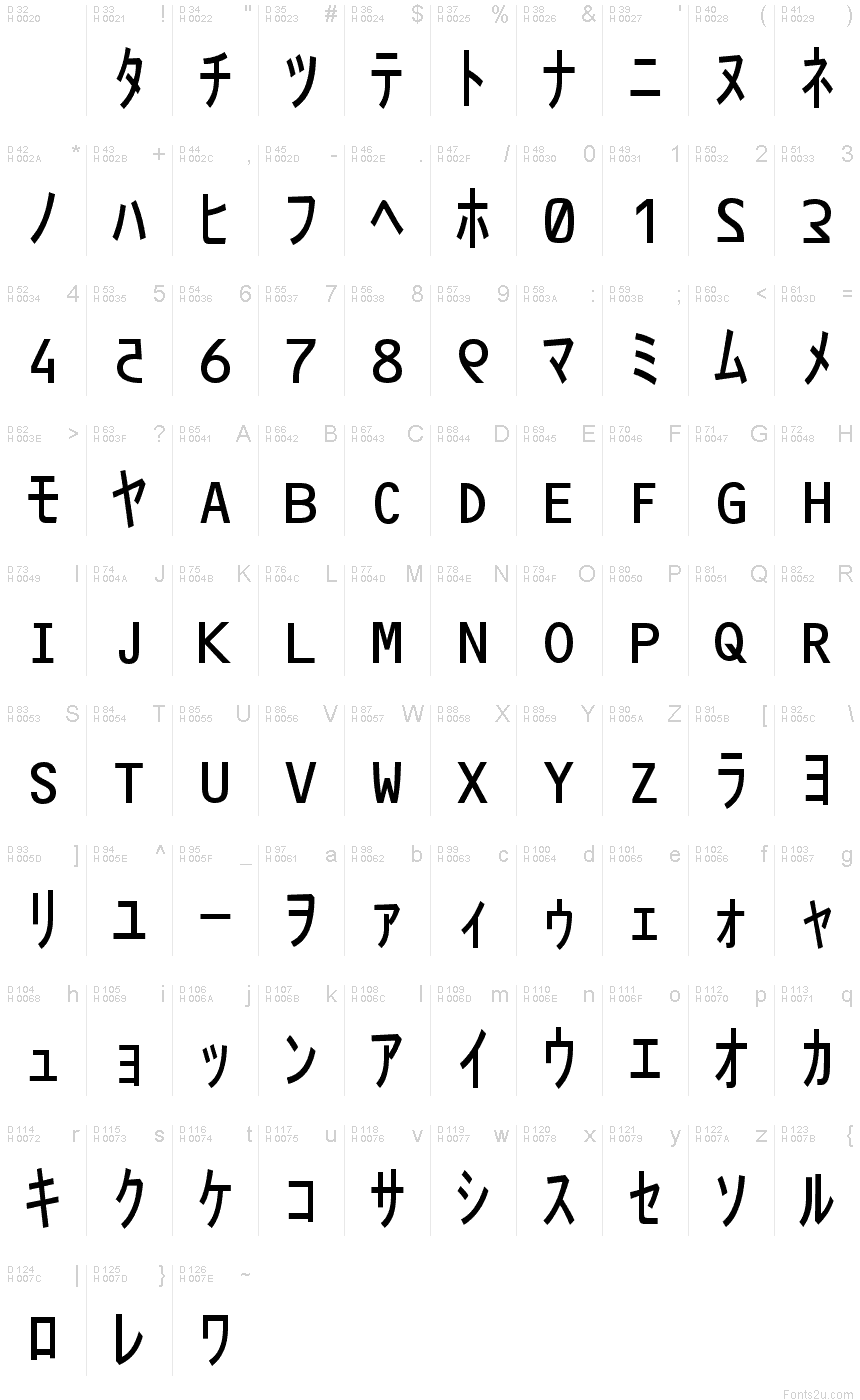
Matrix Code NFI
Matrix Code NFI is a captivating display font that embodies a futuristic aesthetic. Designed by Thomas W. Otto, this font exudes a sleek, technological vibe with its angular letterforms and distinctive spacing. The sharp, monospaced characters create a bold, digital impression, making it an ideal choice for a variety of design applications, from science fiction movie titles to high-tech brand identities.
The font's distinct personality lends itself to experimental layouts and eye-catching typography, offering designers a versatile tool to convey a modern, innovative visual language.
This font is made for the Matrix fans and for making screensavers, backgrounds. I think it is not useful to write with this katagana glyphs in japanese!